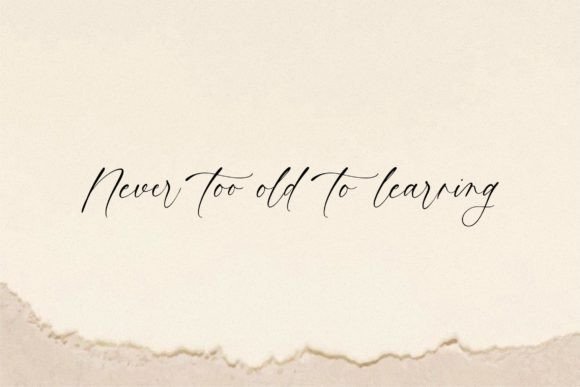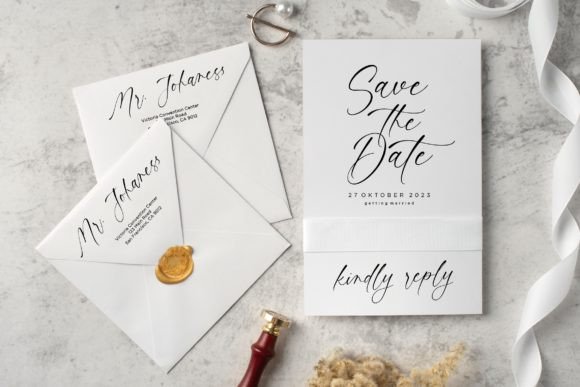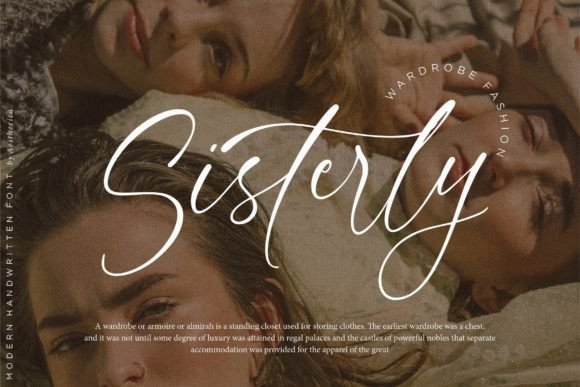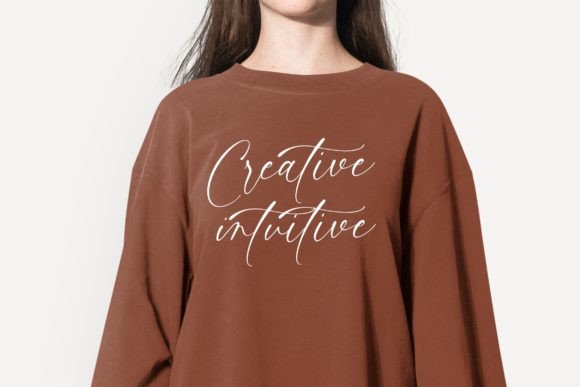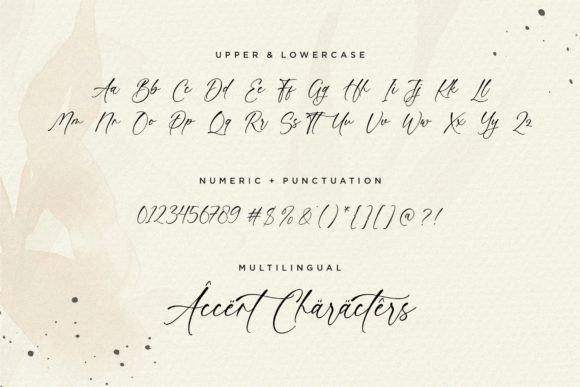
Vintage Painting Font
About Vintage Painting Font
Proudly Present, Vintage Painting
Vintage Painting is perfect for product packaging, branding project, magazines, social media, weddings, or just used to express words above the background.